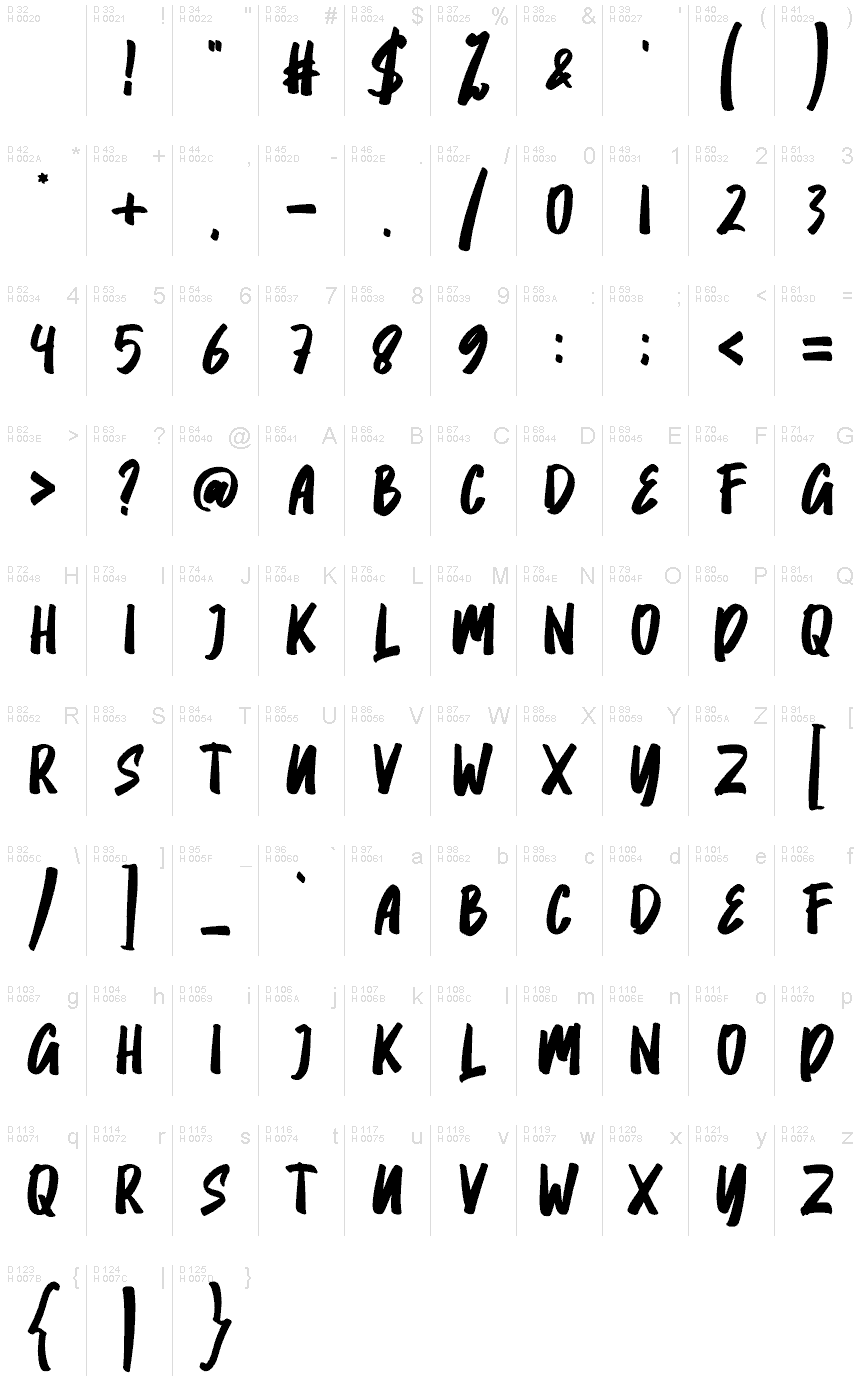
Dzaman
Dzaman font is a delightful brush font with condensed letters from Skiiller Studio. The energetic look of this hand-drawn typeface stems from the above-mentioned style and width combination. Artistic influence is seen through the strokes which give an expressive urban vibe, while their modern casual feel arises from a playful twist on simplification of letters.
This resource should work exceptionally well on urban-themed designs, apparel, and product packaging like food packages or stationery items. Handle it skillfully as part of headlines on advertisements, titles on book covers, company branding details or even your personal logo. The font can even work for posters made to spread awareness about arts and crafts events be it concerts or make-your-own events suitable for all ages!